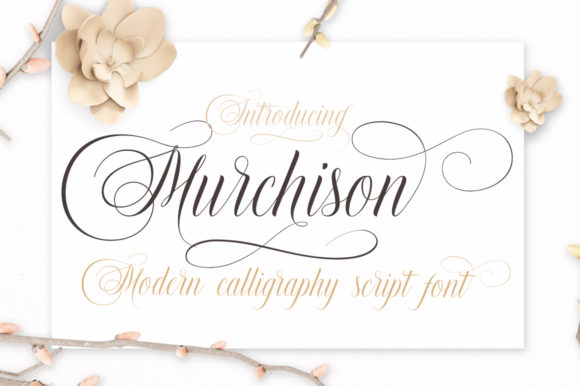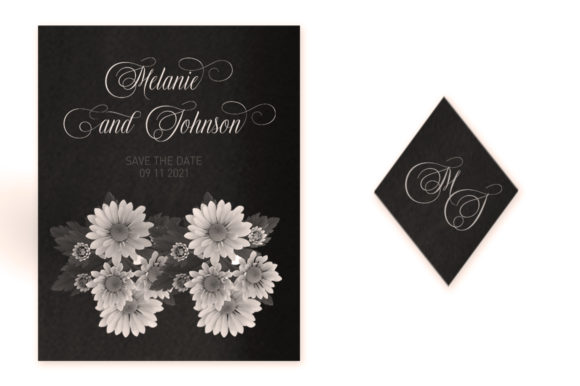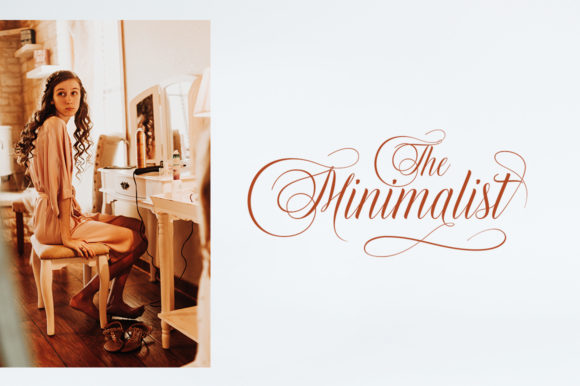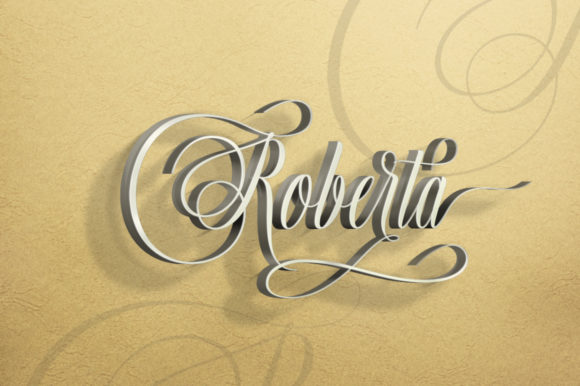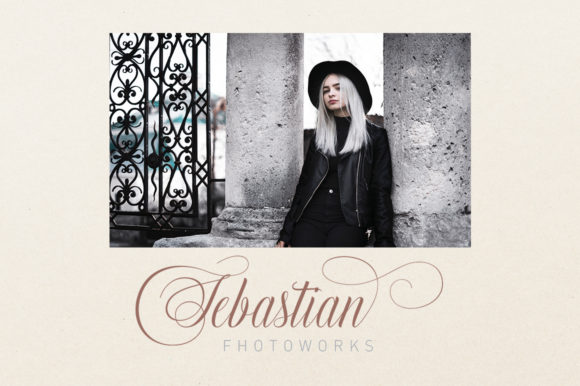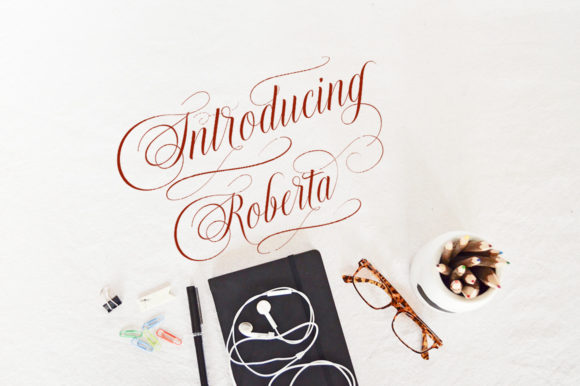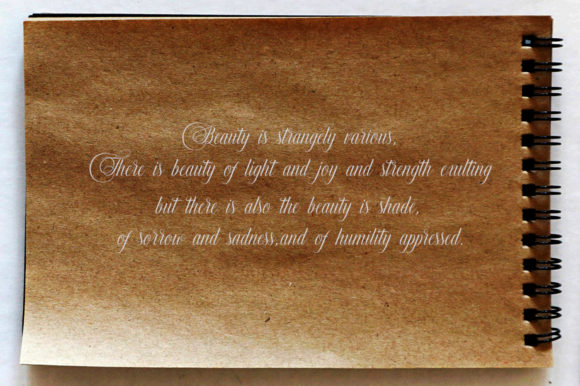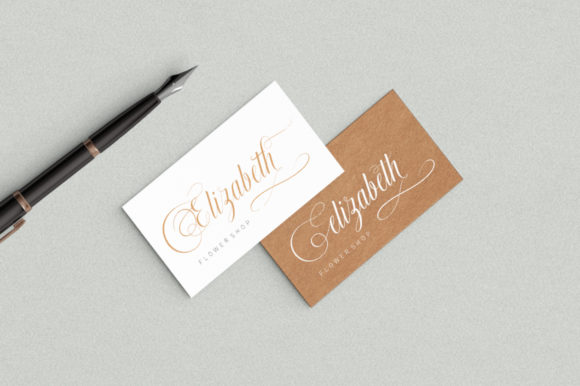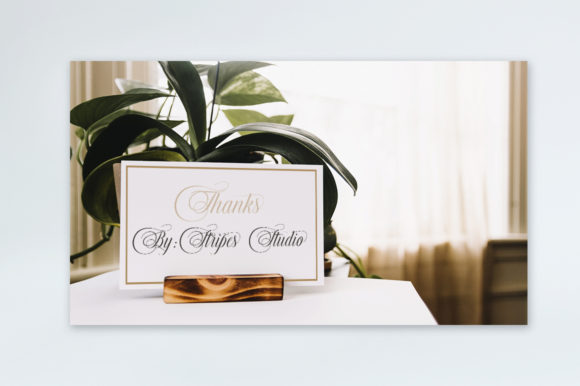
HomeScript FontsMurchison Font Script Fonts Murchison Font FacebookXPinterestWhatsApp Murchison Font Poster 2 Murchison Font Poster 3 Murchison Font Poster 4 Murchison Font Poster 5 Murchison Font Poster 6 Murchison Font Poster 7 Murchison Font Poster 8 Murchison Font Poster 9 About Murchison Font Murchison is a modern and bold script with amazing swashes. Get inspired by its rich and smooth swashes. DOWNLOAD ON CREATIVE FABRICAThis font is sold and delivered by Creative Fabrica. Font Canyon may earn a commission if you buy through this link. People also explored Sunday Font Donut Birtnis Font Angemurphy Font Amelia diana Holiday Font Maxilla Font Nightmare Eggplant Font Flowers Font Settings Font 345 0 TagsMurchison Font Previous articleMagically FontNext articleRosydit Font LEAVE A REPLY Cancel reply Comment: Please enter your comment! Name:* Please enter your name here Email:* You have entered an incorrect email address! Please enter your email address here Website: Save my name, email, and website in this browser for the next time I comment. Personal Use Free Dream Orphans Personal Use Free Read more about this font The Royal Personal Use Free Read more about this font Black Personal Use Free Read more about this font Bakk Trieng Personal Use Free Read more about this font BLOG Free Fonts Risk: Why Free Fonts Can Be Dangerous for Designers Free Fonts Risk: Why Free Fonts Can Be Dangerous for Designers Using free fonts is a common practice in web and graphic design. However, the... Top 10 Handwritten Fonts That Elevate Your Designs Exploring Font Trends Using Fonts in Digital Marketing: Tips to Strengthen Your Brand Identity